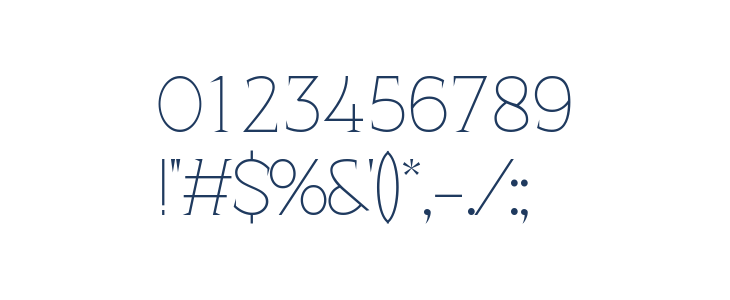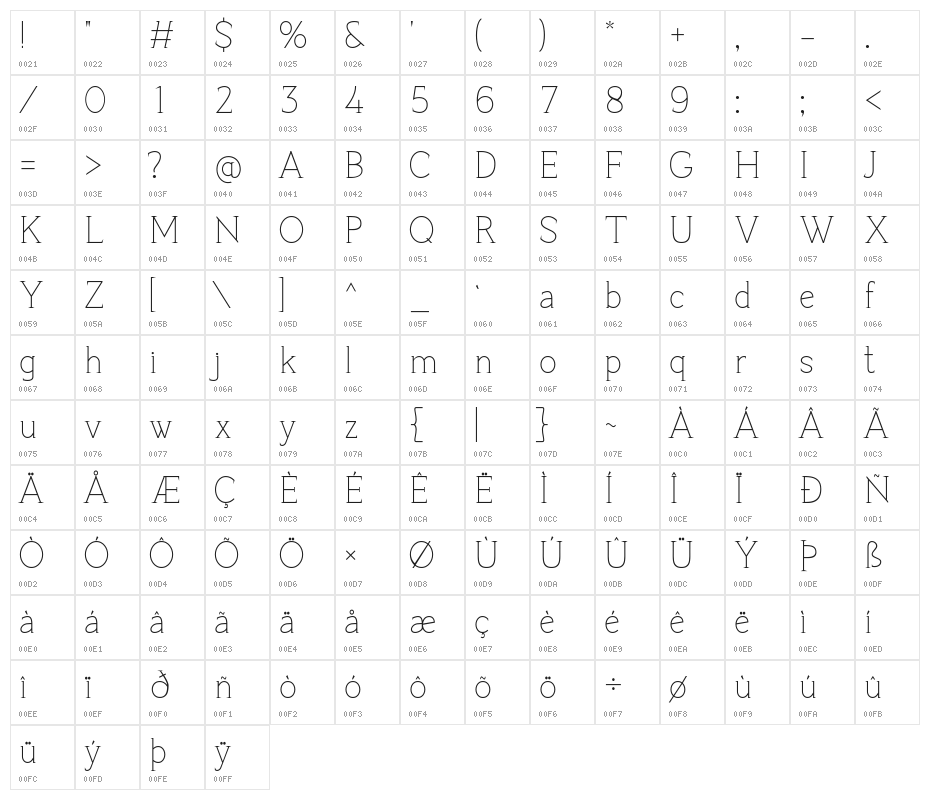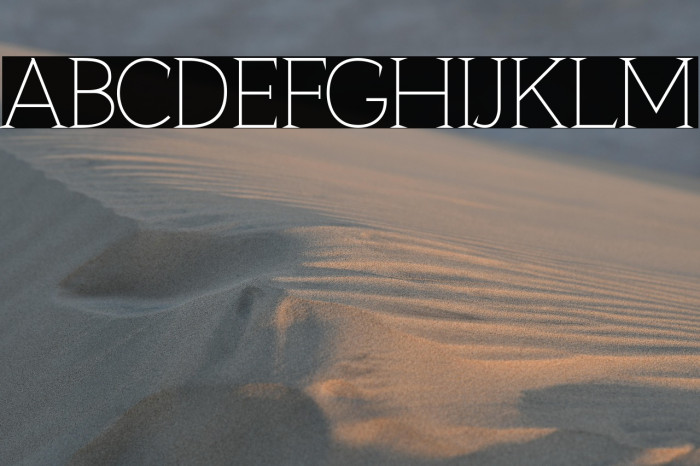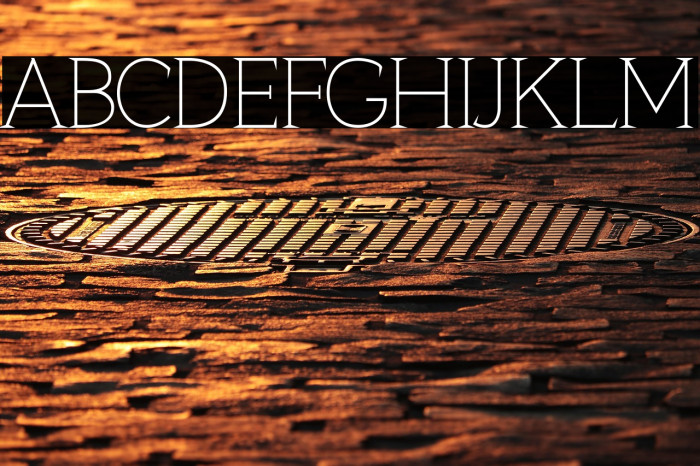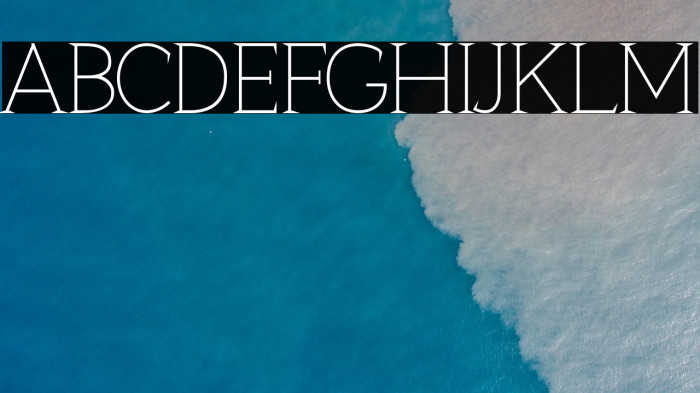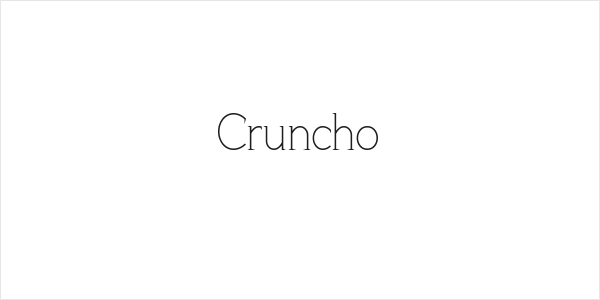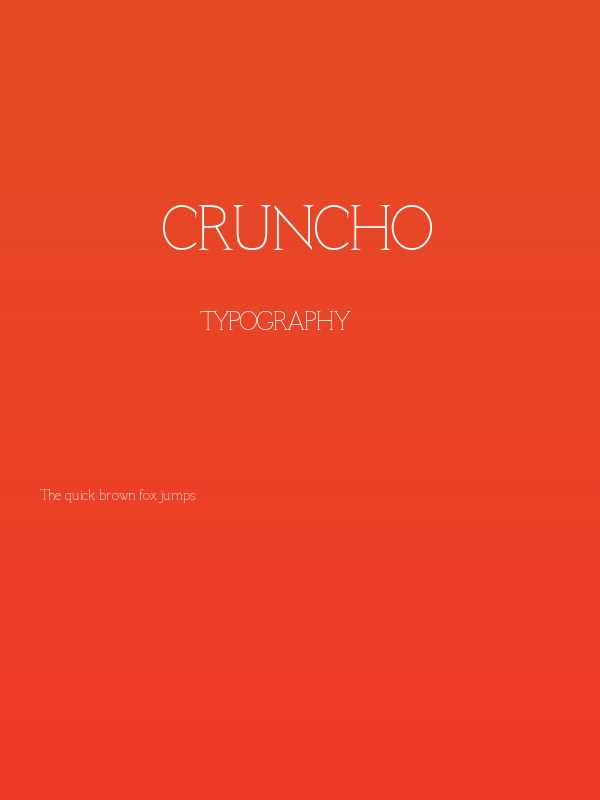
Cruncho Font
Cruncho Description
This font features a modern and elegant design with clean lines and a sophisticated appearance. The characters are well-proportioned, offering a balanced look that is both stylish and readable. The uppercase letters are slightly taller than the lowercase, providing a subtle contrast that enhances its visual appeal. The numerals are distinct and clear, making them easy to read. Special characters are designed with the same attention to detail, ensuring consistency throughout. The overall design is versatile, suitable for a variety of applications from print to digital media.